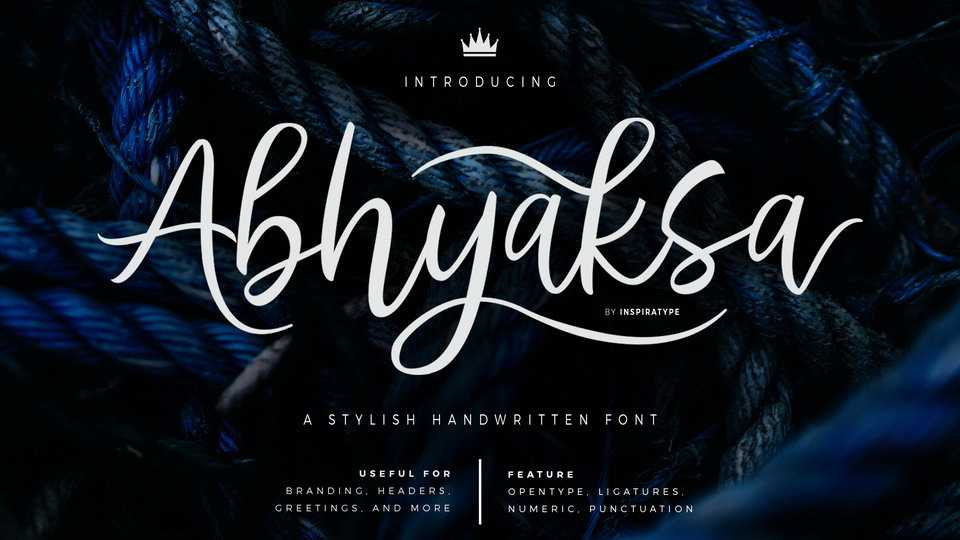
Download Abhyaksa font, a beautiful script, made by hand, inspired by classic posters and perfect to use for logotype, letterhead, poster, apparel design, label and etc.
Designer: Inspiratype